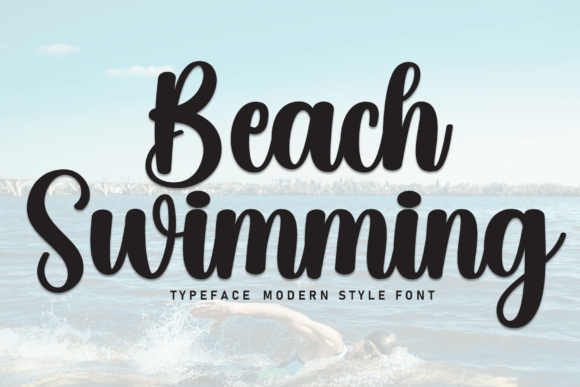
Dive into the ocean of creativity with Beach Swimming Script Font, a stunning handwritten font that will transform your designs into mesmerizing works of art. This font is the perfect choice for those seeking a touch of elegance, uniqueness, and heartfelt charm in their creations.
With its graceful strokes and flowing lines, Beach Swimming Script Font dances across your projects, leaving a trail of beauty and inspiration. Its carefully crafted characters reflect the organic beauty of the sea, evoking a sense of serenity and wonder. Whether you're designing logos, branding, or heartfelt quotes, this font will add a touch of timeless sophistication that captivates and enchants.
Embark on a typographic adventure where each letter becomes a brushstroke, connecting your words with the raw emotions of handwritten artistry. Beach Swimming Script Font breathes life into your designs, creating a visual masterpiece that speaks to the heart. Discover the power of this font to transform your creative visions into extraordinary realities.